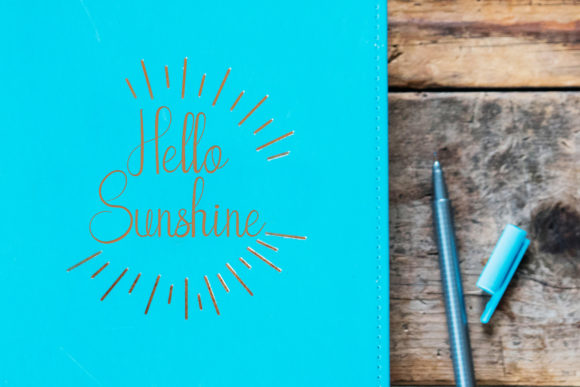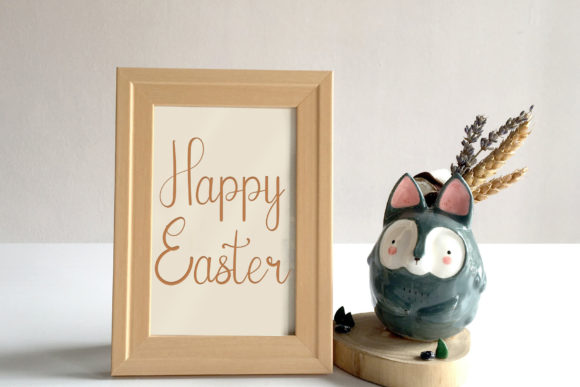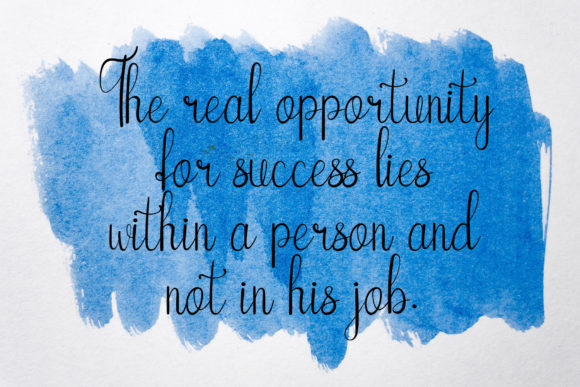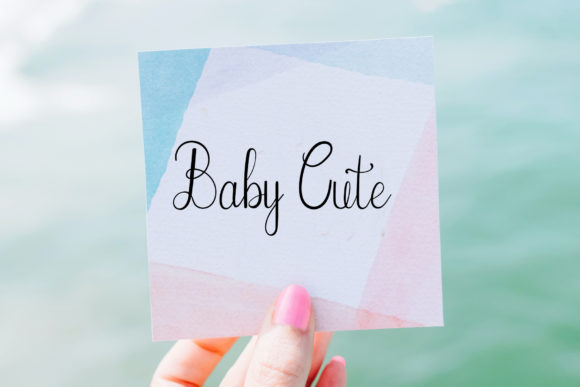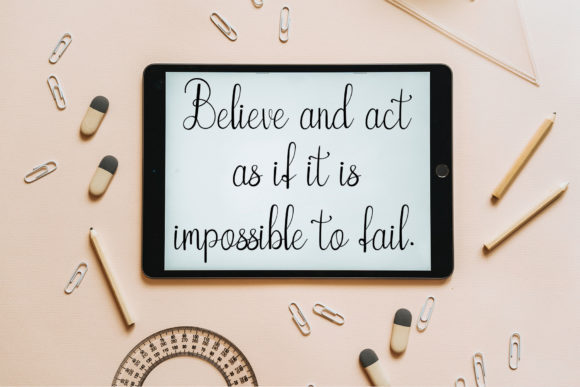
Discovering the Perfect Font for Your Next Design Project
You know that moment when you’re working on a design project and everything just clicks? You’re browsing through font options, and suddenly, you stumble upon the perfect one. It’s like finding a missing piece of a puzzle, and everything falls into place. That’s what happens when you discover the Baby Sophie Font.
This chic, refined script font is a designer’s dream come true. With its stylish alternates and ligatures, Baby Sophie Font adds a touch of sophistication and elegance to any project. Whether you’re working on a wedding invitation, a branding campaign, or a packaging design, this font is sure to impress. As a designer, you know how valuable it is to have a versatile font that can elevate your work and make it stand out from the crowd.
- Unique Characteristics: This font features a whimsical and playful design, with rounded shapes and soft lines, making it perfect for children’s books, nursery decor, and other kid-friendly projects
Review of Baby Sophie Font
I recently had the chance to work with the Baby Sophie Font, and I must say it’s a lovely script font. ✨ The elegant, whimsical feel it brings to any design project is undeniable. The font’s flowing lines and gentle curves are perfect for adding a touch of sophistication and femininity to your work.
Here are some of the things that work well with Baby Sophie Font:
- ✨ Elegant and whimsical feel: Baby Sophie Font is perfect for adding a touch of sophistication and femininity to your designs.
- ✨ High-quality glyphs: The font includes a wide range of glyphs, including ligatures and ornaments, which make it ideal for creating beautiful and intricate designs.
- ✨ Versatile: Baby Sophie Font can be used for a variety of design projects, from wedding invitations to children’s books.
- ⚠️ Limited font sizes: While Baby Sophie Font looks great at larger font sizes, it can become a bit difficult to read at smaller sizes.
- ⚠️ Limited support for certain languages: Baby Sophie Font may not support certain languages or character sets, which can be a problem for international design projects.
Overall, I think Baby Sophie Font is a great addition to any designer’s toolkit. While it may have some limitations, its elegant and whimsical feel makes it perfect for a wide range of design projects.
The Baby Sophie Font is ideal for:
1. Children’s party invitations and decorations.
2. Baby shower invitations and decorations.
3. Kids’ clothing and accessories labels.
4. Educational materials and children’s books.
1. Use the font in conjunction with playful graphics and illustrations.
2. Experiment with different font sizes and colors to add visual interest.
3. Use the font in a variety of contexts, such as headings, subheadings, and body text.